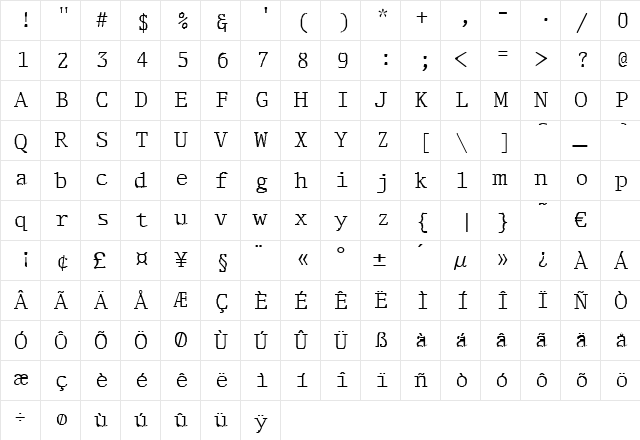
Outsider Regular Font Preview
Outsider Regular
Outsider Regular Font Details
Design Context for Outsider Typeface
Outsider offers clean, dependable letterforms without strong stylistic allegiance, making it a practical choice for designers who need flexibility.
Pro Tip: Use Outsider in both headline and body roles to test its range before committing to a single application.